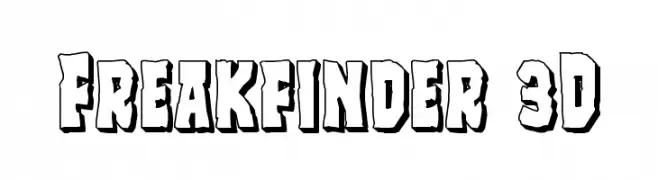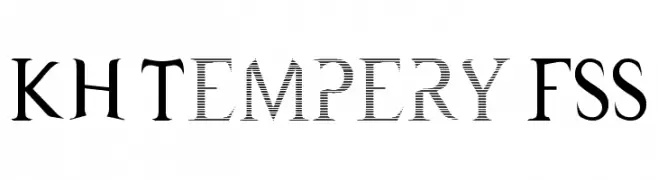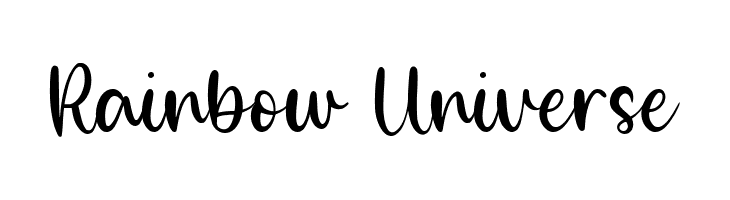
A modern serif font with sharp angles and high contrast, ideal for impactful designs.
A bold, outlined font with a modern, geometric style.
A light, monospaced italic font with a modern and elegant style.
A bold, spiky, and textured font with a playful and edgy design.
Dynamic handwritten script font.
A bold, distressed font with a grunge aesthetic and high contrast.
A bold, playful font with rounded, bubble-like characters.
A decorative font with autumn foliage embellishments on each character.
A bold, hollow font with a three-dimensional effect and geometric shapes.